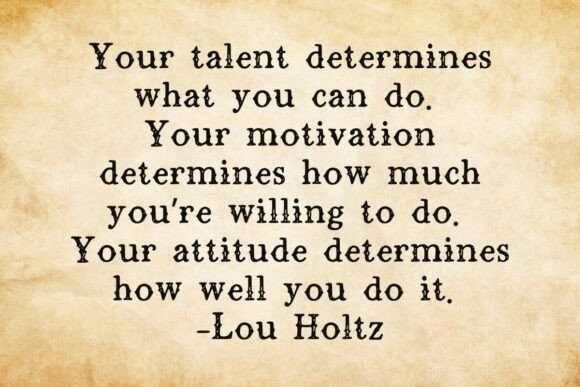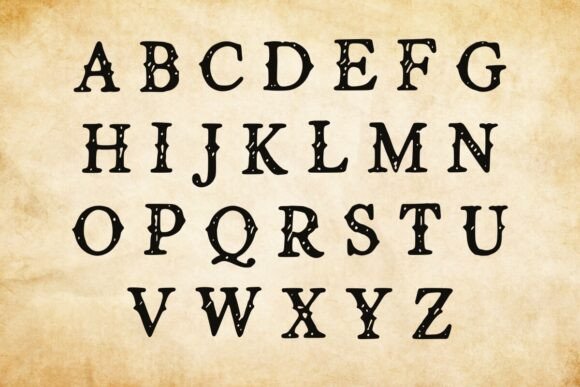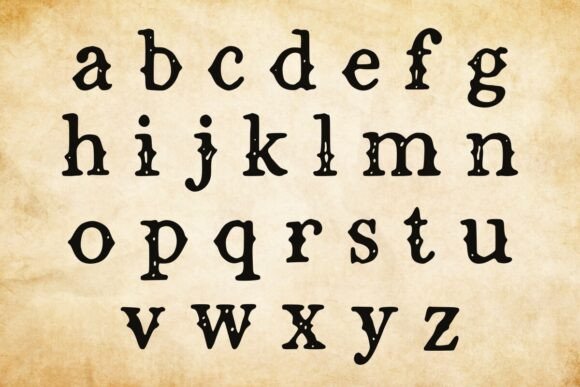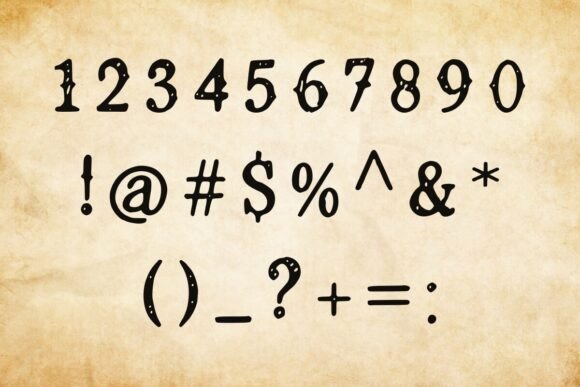
Introduction to Gnarled Ink Font
As designers, we’ve all been there – staring at a blank canvas, searching for the perfect font to bring our creative project to life. And then, it happens. You stumble upon a font that’s so unique, so captivating, that it instantly transports you to another world. For me, that font is the Gnarled Ink Font, a rustic, weathered typeface that whispers tales of old parchment, tattered manuscripts, and eerie folklore.
Imagine being able to evoke the same sense of mystique and wonder in your designs, from fantasy-themed posters to historical-inspired graphics. With Gnarled Ink Font, you can do just that. This high-quality font is perfect for designers who want to add a touch of character to their projects, without sacrificing legibility.
Key Features of Gnarled Ink Font
- Unique Hand-Drawn Design: The Gnarled Ink Font features a distinctive, hand-drawn design that adds a touch of elegance to any creative project.
- Large Character Set: The font includes a comprehensive character set, including uppercase and lowercase letters, numbers, and punctuation marks.
- High-Quality Design Resource: The Gnarled Ink Font is a high-quality design resource that can be used for a wide range of creative projects, from branding and advertising to editorial and publishing.
- Perfect for Creative Projects: The Gnarled Ink Font is ideal for designers working on creative projects that require a unique, hand-drawn look.
Honest Review: Gnarled Ink Font
As a designer, I’m always on the lookout for unique and high-quality design resources to elevate my creative projects. The Gnarled Ink Font is one such find that I’d like to share with you.
What works well: ✨ The font’s distressed and vintage aesthetic is perfect for adding a touch of grit and personality to my designs. It’s a great addition to any creative project that requires a rugged, handcrafted look. I particularly appreciate the transparent background option, which allows for seamless integration with other design elements.
Limitations: ⚠️ While the font’s unique aesthetic is a major plus, it can be a bit overused in certain contexts. I’ve found that it works best when used sparingly to add a touch of personality to a design, rather than as the primary font.
Overall, I’m impressed with the Gnarled Ink Font and would definitely recommend it to designers looking for a high-quality, creative font to add some edge to their projects.
- Unique and high-quality design resource
- Perfect for creative projects that require a distressed or vintage aesthetic
Tips for Getting the Most Out of Gnarled Ink Font
When using the Gnarled Ink Font, try pairing it with a solid background to make the text stand out. You can also experiment with different font sizes and styles to create a unique look. Additionally, the font is perfect for use in creative projects such as logos, invitations, and social media graphics.